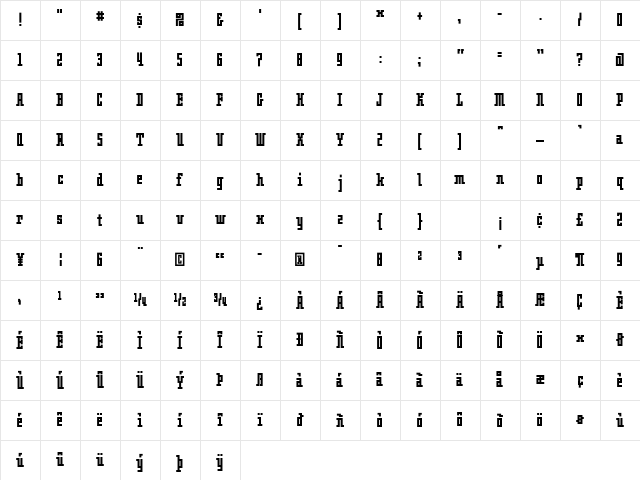
OblongBold Bold Free Font
OblongBold Bold
Foundry: Copr. Emigre Graphics
OblongBold Family
OblongBold Bold
Design Context for OblongBold
OblongBold is a composed and adaptable typeface that performs quietly and consistently across a wide range of design contexts. Its bold stroke weight gives it real presence on the page.